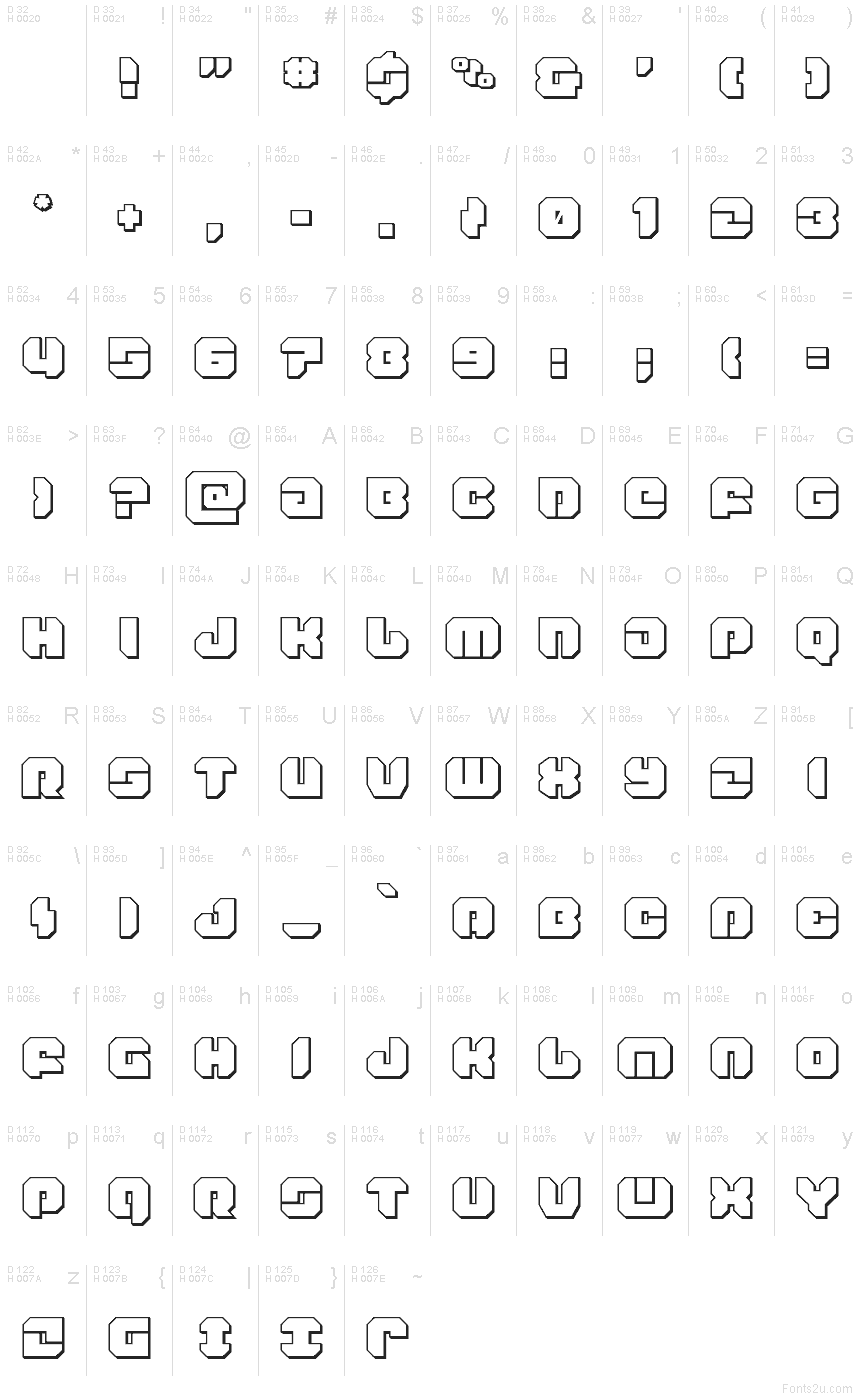
Krieger 3D font by Iconian Fonts is a free 3D techno typeface that turns every word into a chunky, faceted object on the page. Its angular, beveled outlines and hollow interior give it a bold, mechanical feel, like metal plates snapped together in mid-air. The tight geometry creates a strong rhythm across a wordmark, while the crisp linework keeps the forms readable even at a distance.
Using Krieger 3D, you can push sci‑fi game logos, esports team branding, tech event posters, YouTube channel art, and futuristic album covers into full-on “mech” territory. This free font shines when used large and spaced slightly wider than usual, so each 3D shape has room to breathe. Pair it with a simple, clean sans serif for body copy to let the Krieger family handle the drama up top.